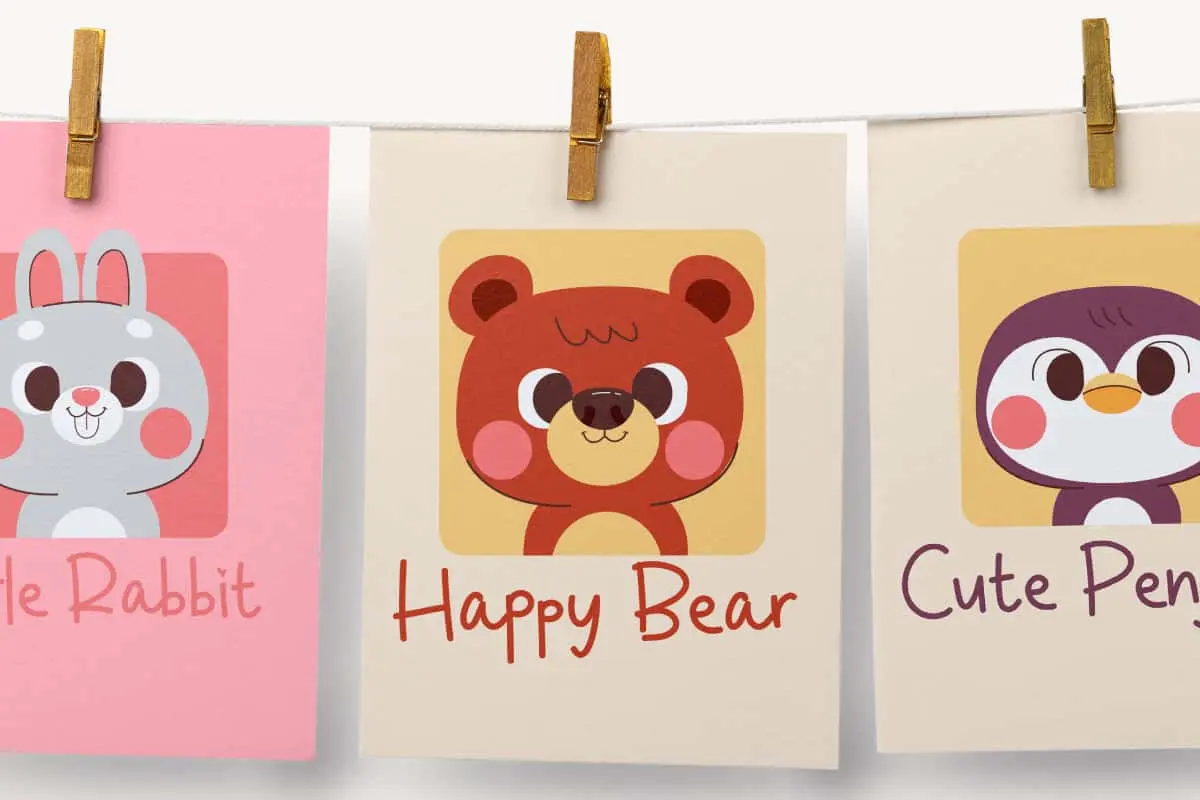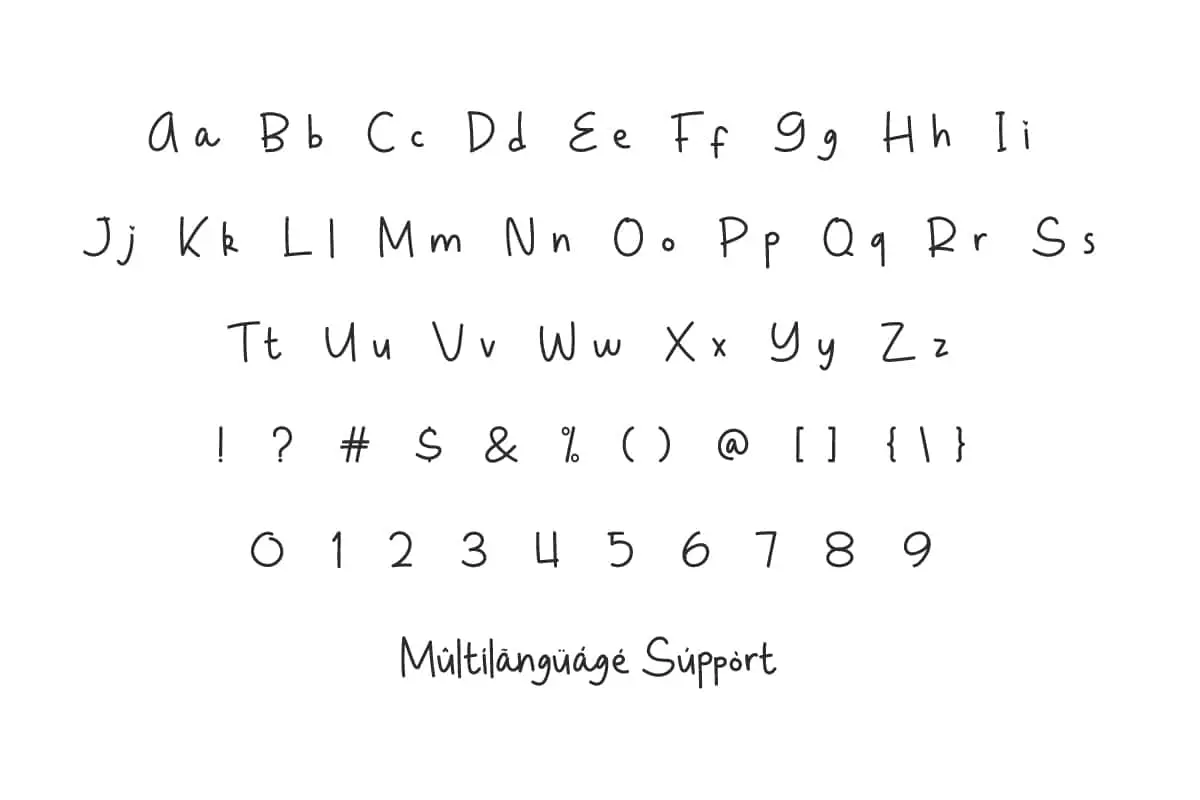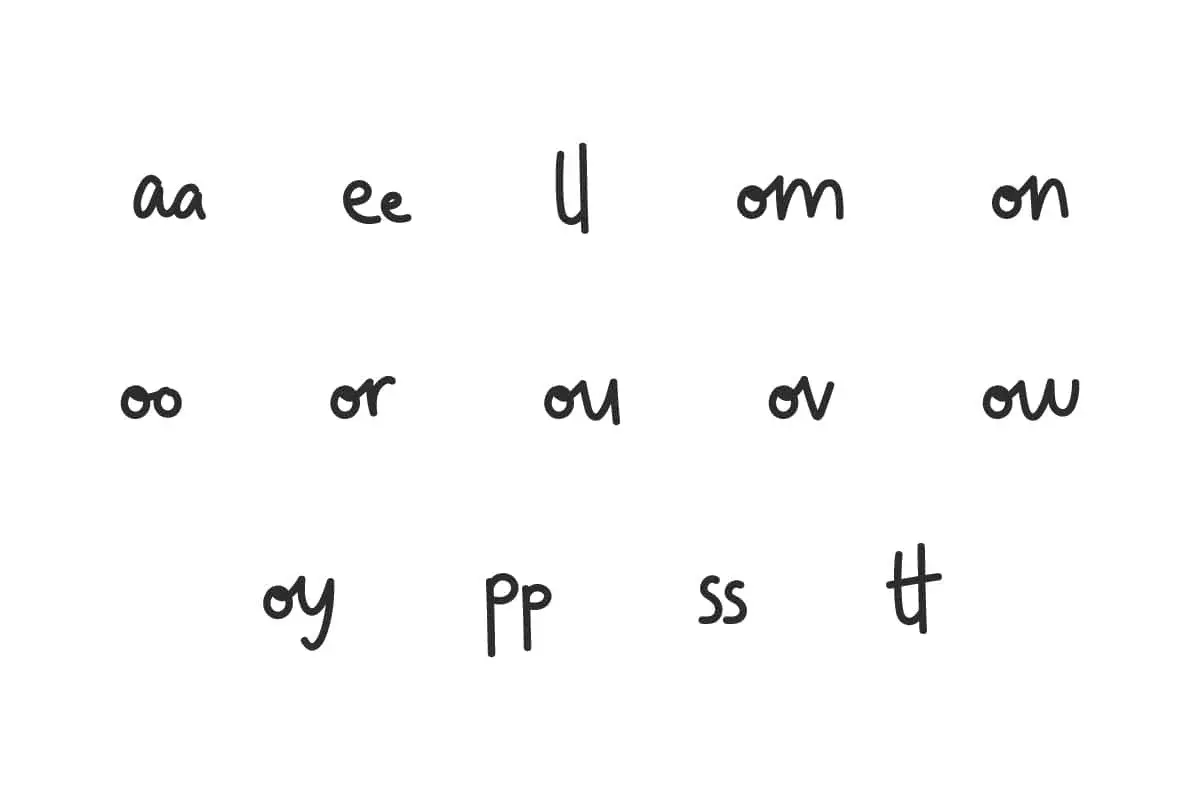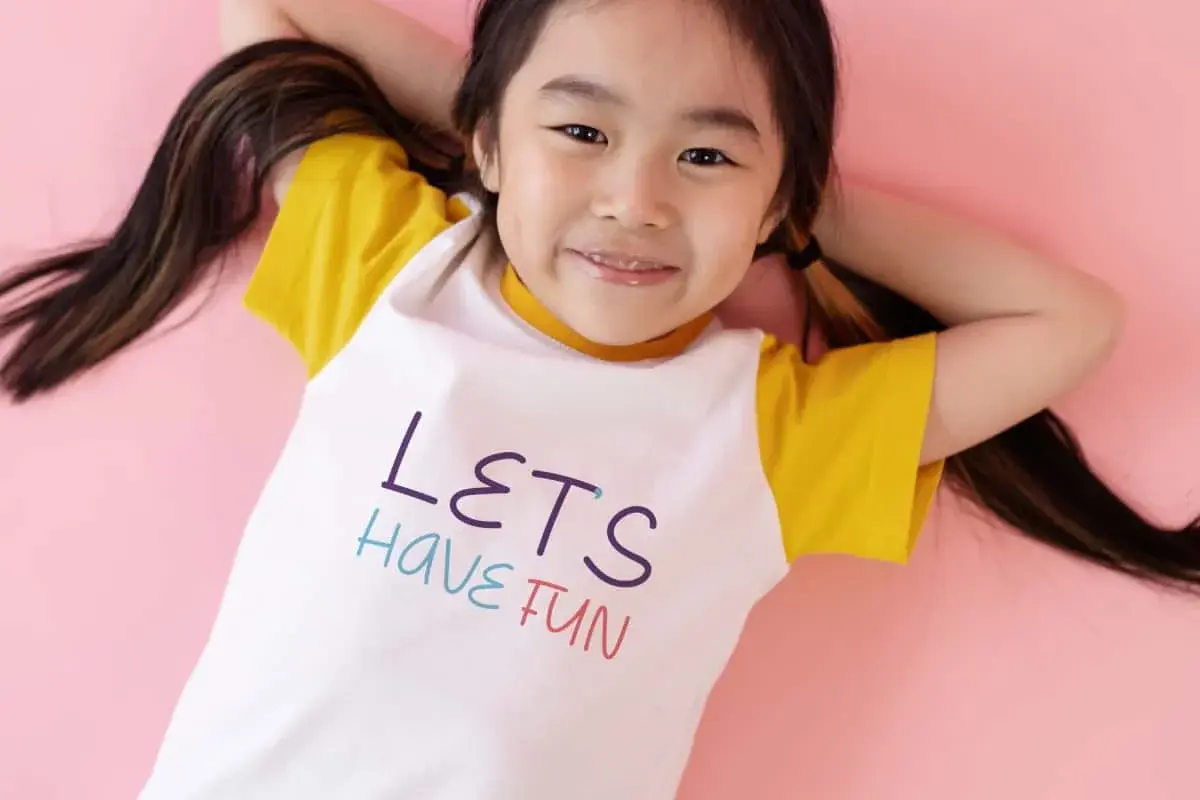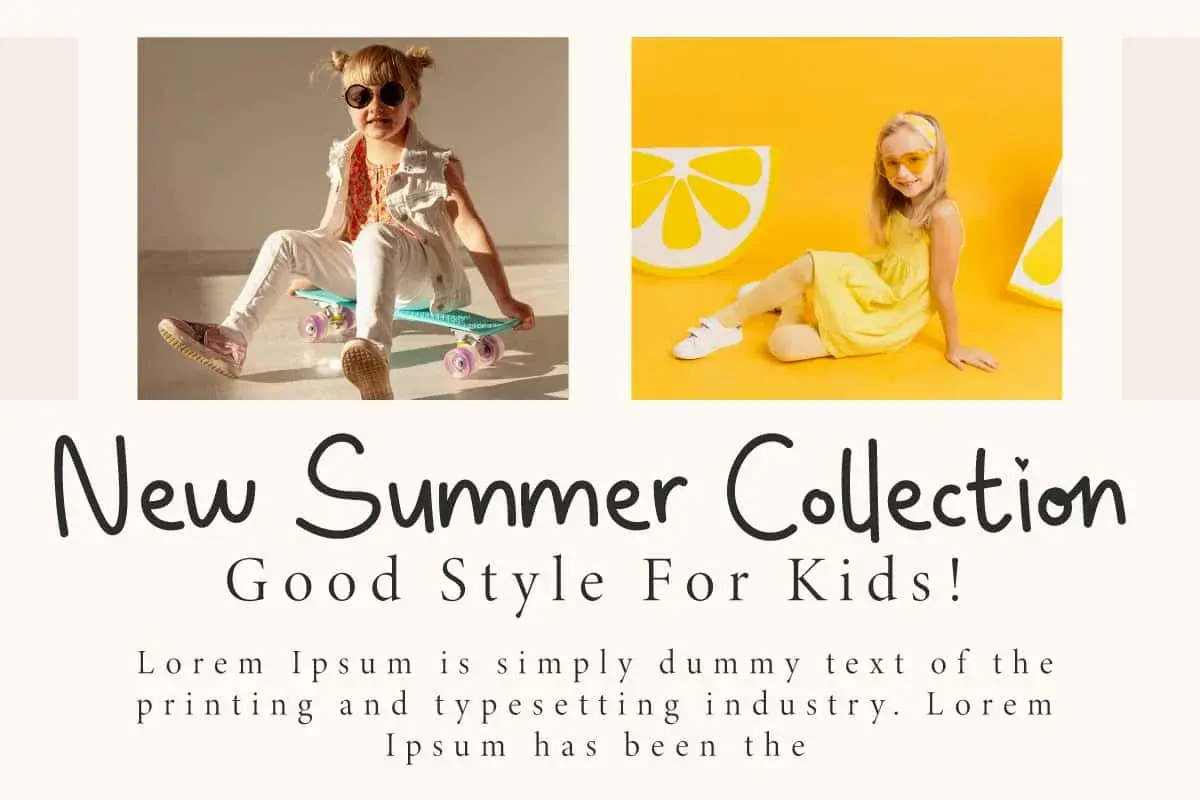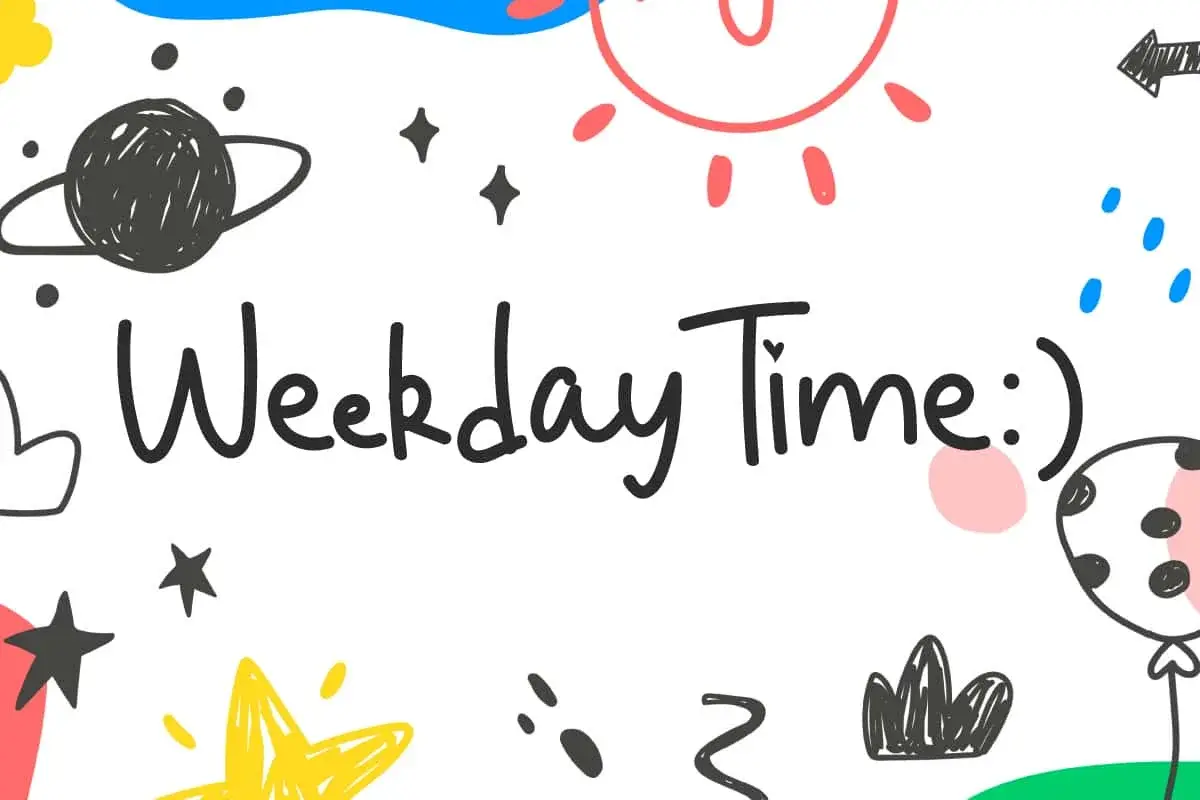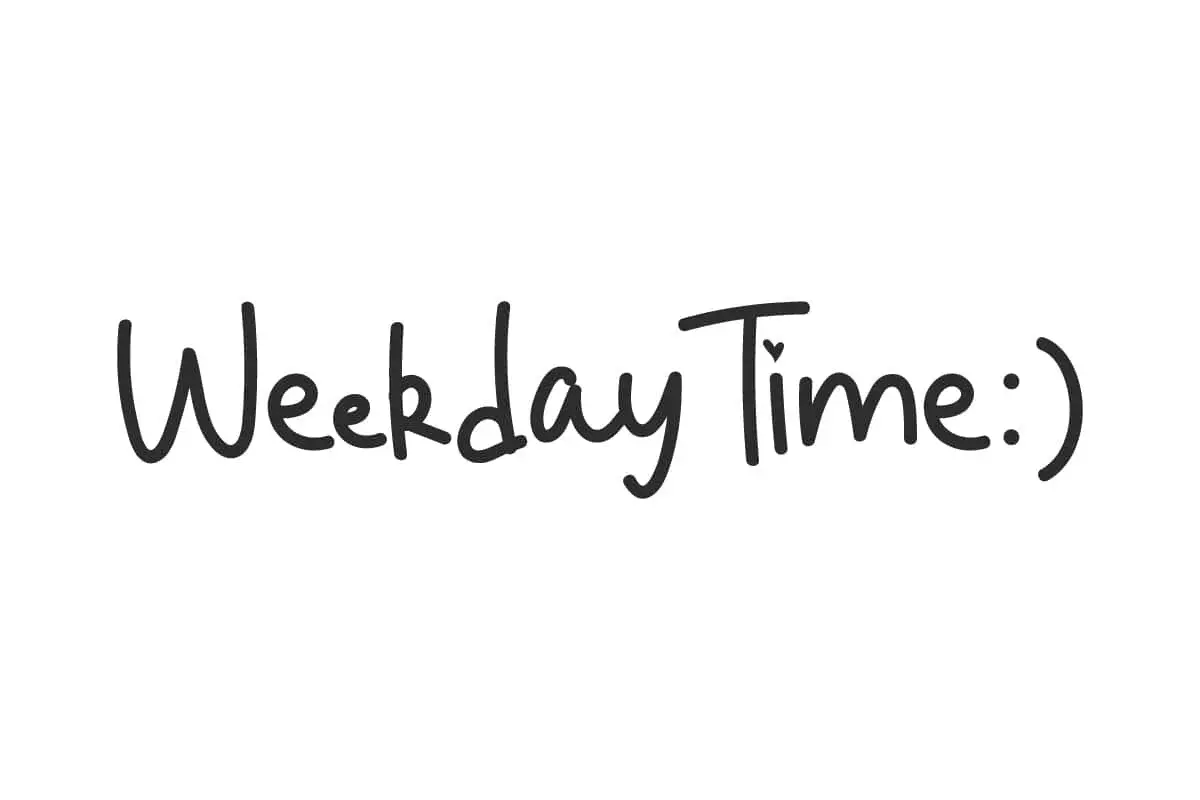
Weekday Time Font is a cheerful font inspired by picture books and children’s illustrations. It works well on a wide range of projects.
Weekday Time Font is an adorable single line handwriting font with a casual and minimalist style. It’s exactly like using a real handmade marker, resulting in a natural and realistic font look. Perfect for branding, brochure, business card, flyer, greeting cards, invitations, logos, poster, t-shirt screen print, website, and more.
Weekday Time Font includes a complete set of Basic Uppercase and Lowercase Characters, Numbers, Punctuation Marks and Symbols. Also comes with Ligatures to give the font a more beautiful feel. This font is designed to be an attractive typographic choice for any design brief that needs a personal touch. Ready for any project, such as accessories and gifts, bakery, cafes, children’s series, kids clothes, restaurant, school, and anything else.